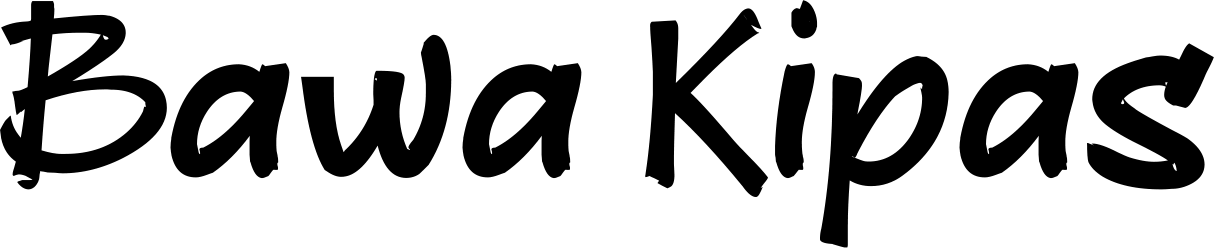
B Bawa Kipas Font
B Bawa Kipas font can be included in your download list because it supports all the characters you need. In addition, it will give a happy and energetic style to your design.
This animated font will be the best choice for designing business cards, posters, and flyers for exhibitions. You can also have one of the best-selling T-shirt designs for your girly’ brands.